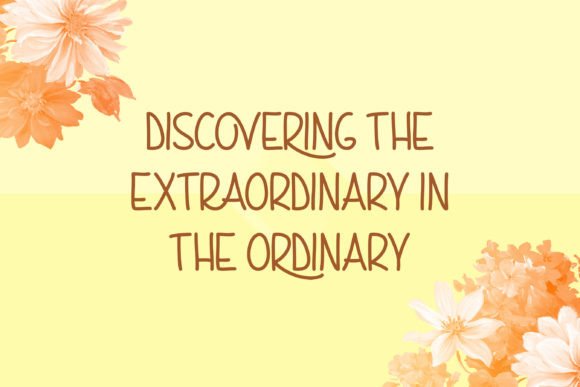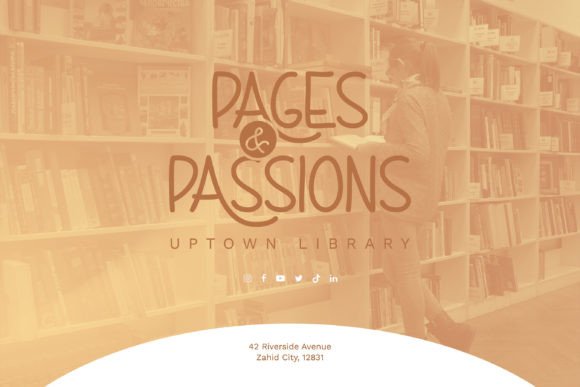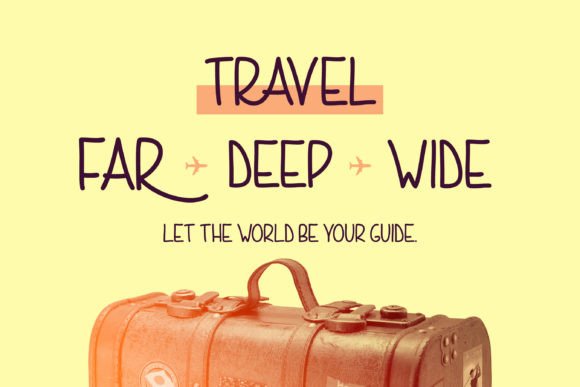
Introduction to Manova Font
Have you ever been stuck trying to find the perfect font to bring your design to life? I know I have. There’s nothing quite like the thrill of discovering a font that captures the essence of your creative vision. That’s why I’m excited to introduce you to the Manova Font – a high-quality, approachable handwritten sans serif font that’s about to become your new go-to design resource.
With its smooth and flowing letterforms, the Manova Font strikes the perfect balance between casual and professional, making it ideal for a wide range of creative projects. Whether you’re working on a free download or a paid design, the Manova Font is a valuable addition to your toolkit. Plus, its versatility shines through on transparent backgrounds, adding a touch of warmth and authenticity to your designs.
Key Features of Manova Font
- High-quality design with a transparent background, ideal for creative projects
- Unique characteristics: features a modern and elegant style, making it perfect for use in various creative projects, including logos, branding, and typography
Honest Review: Manova Font
As a designer, I’m always on the lookout for high-quality design resources to enhance my creative projects. The Manova Font is one such resource that caught my attention.
One of the standout features of the Manova Font is its clean and modern aesthetic, making it perfect for a variety of design applications, from logos to typography-heavy designs.
Here are some things that work well:
- ✨ High-quality font with crisp lines and well-defined characters.
- ⚠️ Limited character set, which may not be ideal for complex designs.
- ⚠️ No transparent background option, which can make it difficult to use in certain design scenarios.
Overall, I’m impressed with the Manova Font, and it’s definitely a valuable addition to any designer’s toolkit. While it may have some limitations, its high quality and versatility make it a great resource for creative projects.
Manova Font is ideal for creative projects that require a high-quality, modern look. Use it for graphic design, digital art, or any other design project that demands a unique and creative touch.